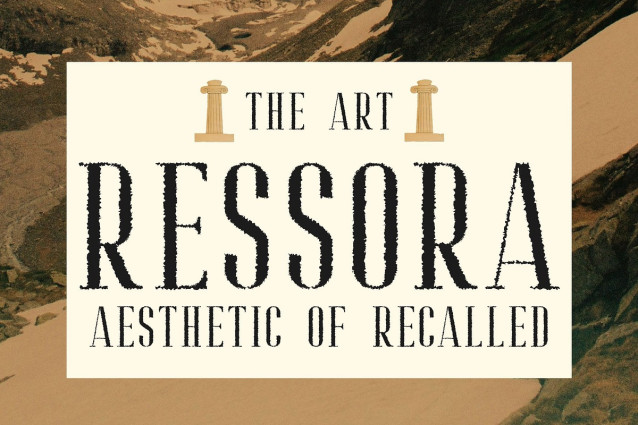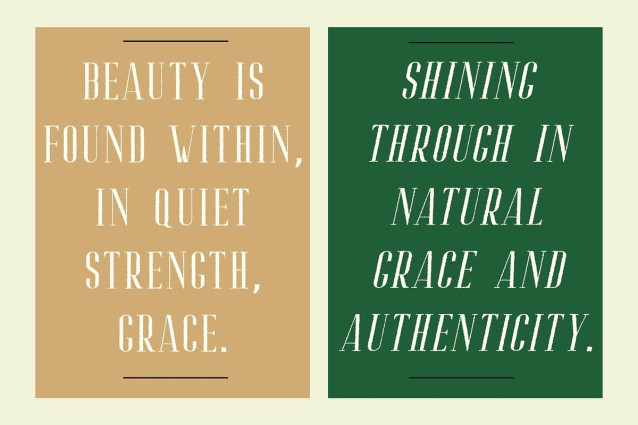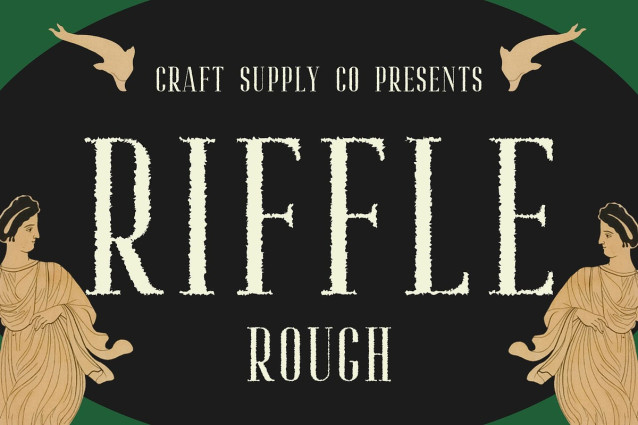
Riffle Rough Font
Riffle Rough Font is a modern serif font featuring clean, sleek, and condensed letterforms that exude timeless sophistication. Its minimalist design captures the essence of elegance while maintaining a professional appearance, making it perfect for high-end, refined projects.
Rough Texture for a Vintage Touch The rough texture adds a unique, vintage flair to Riffle Rough, introducing character and depth to each letter without sacrificing its modern aesthetic. This subtle, organic effect creates a balance between classic elegance and a contemporary edge, elevating the font’s personality.
Perfect for Luxury Branding and Editorials Ideal for luxury branding, editorial layouts, and sophisticated visual designs, Riffle Rough adds a touch of vintage charm while maintaining a sleek, professional presence. It enhances upscale logos, refined packaging, and high-end publications, making it an excellent choice for projects that demand both grace and impact.
Combining Precision and Personality Riffle Rough perfectly balances modern precision with vintage-inspired texture, offering a sophisticated and captivating look that suits a wide range of professional and creative needs. It’s the ideal choice for designers seeking a refined font with depth and character.